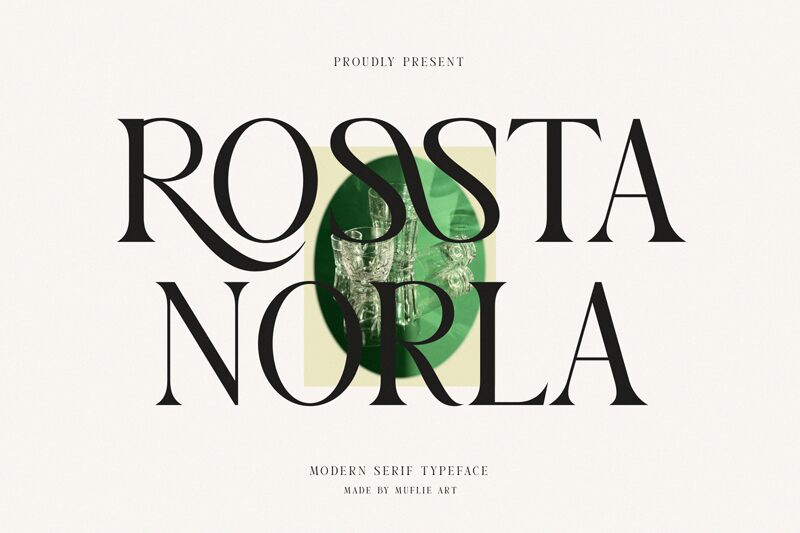
Rossta Norla font family designed by Muflieart is a free font family with 2 font styles. Distinguished by elegance and sophistication, the font shows the refined side of the classic serif style. Slight artistic flair is achieved with distinctive cuts and mild curves in selected areas. Use this font for contemporary applications that require a timeless visual language that is instantly appealing to its readers.
A lovely font for branding, Rossta Norla can be used in product packaging, social media, blogs, and websites. Posters, editorial spreads, books, and magazines can also incorporate the font’s beauty. Rossta Norla is also a great option for art, cultural, and museum projects.